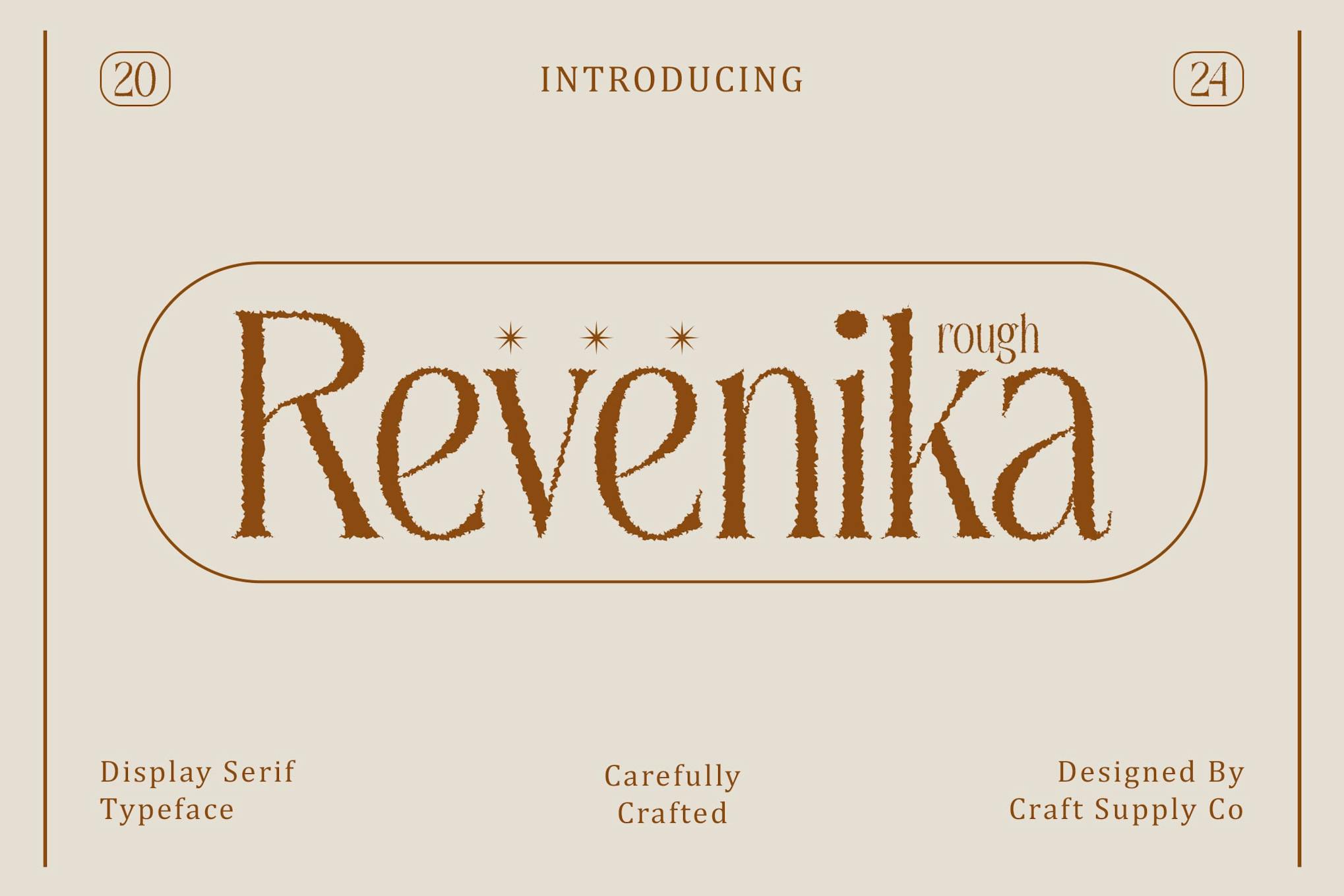
Revenika Rough Font
Perfect for vintage branding, rugged packaging, outdoor adventure logos, music posters, apparel design, and social media graphics.
The Revenika Rough Font excites designers with its bold, textured strokes and rustic, hand-crafted feel that brings raw authenticity to any project.
The Revenika Rough Font Free Download is a striking typeface tailored for creative projects needing a gritty, vintage-inspired style. Its rough edges and distressed texture give it a handmade look that evokes warmth and nostalgia. Ideal for outdoor brands, craft breweries, and music event posters, Revenika Rough adds a powerful voice to your design language.
One of the standout features of Revenika Rough Font is its ability to convey ruggedness without compromising legibility. Its bold characters and textured details make it perfect for headlines, logos, and packaging that demand attention and character. Whether you're designing for an adventure gear brand or a retro music festival, this font balances boldness and charm effortlessly.
In branding, Revenika Rough builds trust by evoking craftsmanship and durability. Its rustic style pairs beautifully with natural textures, earthy color palettes, and organic photography, creating cohesive visual stories that resonate deeply with target audiences.
For digital platforms, this font enhances social media posts, website headers, and promotional banners with its dynamic, handcrafted vibe. It stands out especially well on outdoor lifestyle and vintage-themed content, giving your projects a unique edge.